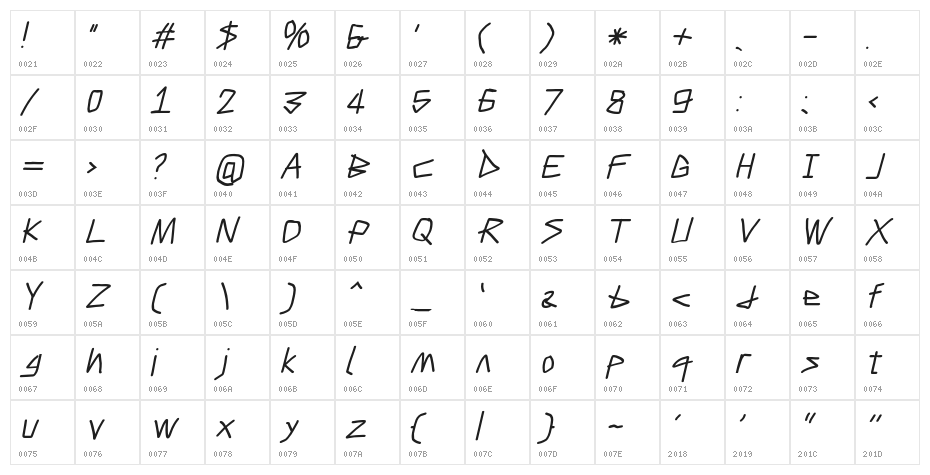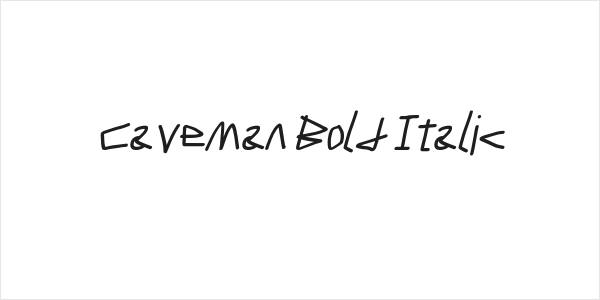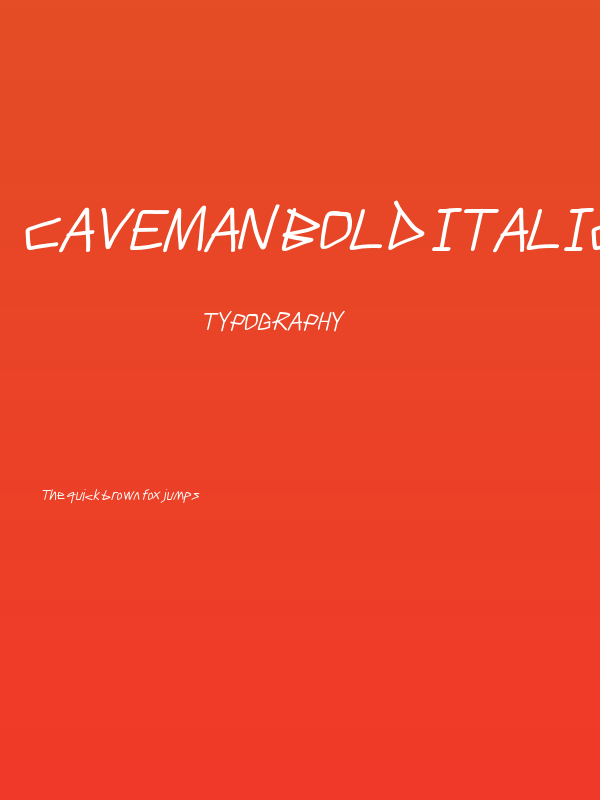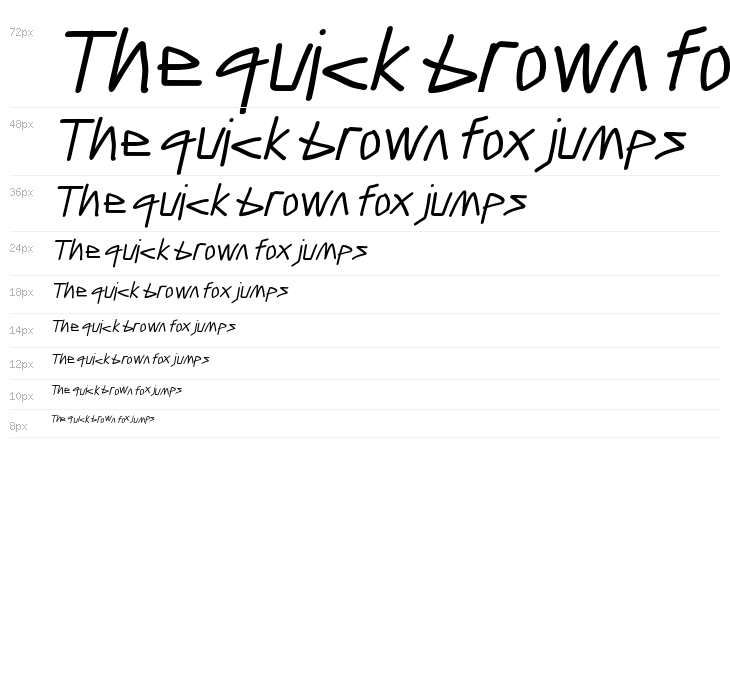
Caveman Bold Italic Font
Caveman Bold Italic Description
This font features a bold and italicized style with a hand-drawn, primitive aesthetic. The characters are slightly slanted, giving a dynamic and energetic feel. The strokes are thick and uneven, reminiscent of ancient carvings or graffiti. The uppercase and lowercase letters maintain a consistent style, with angular lines and a playful, informal appearance. Numbers and special characters follow the same design principles, ensuring a cohesive look across all glyphs. This font exudes a raw, organic charm, making it stand out with its unique and unconventional design.
| Proposed Projects | Ideal for projects requiring a rustic or prehistoric theme, such as children's books, posters, or themed event invitations. |